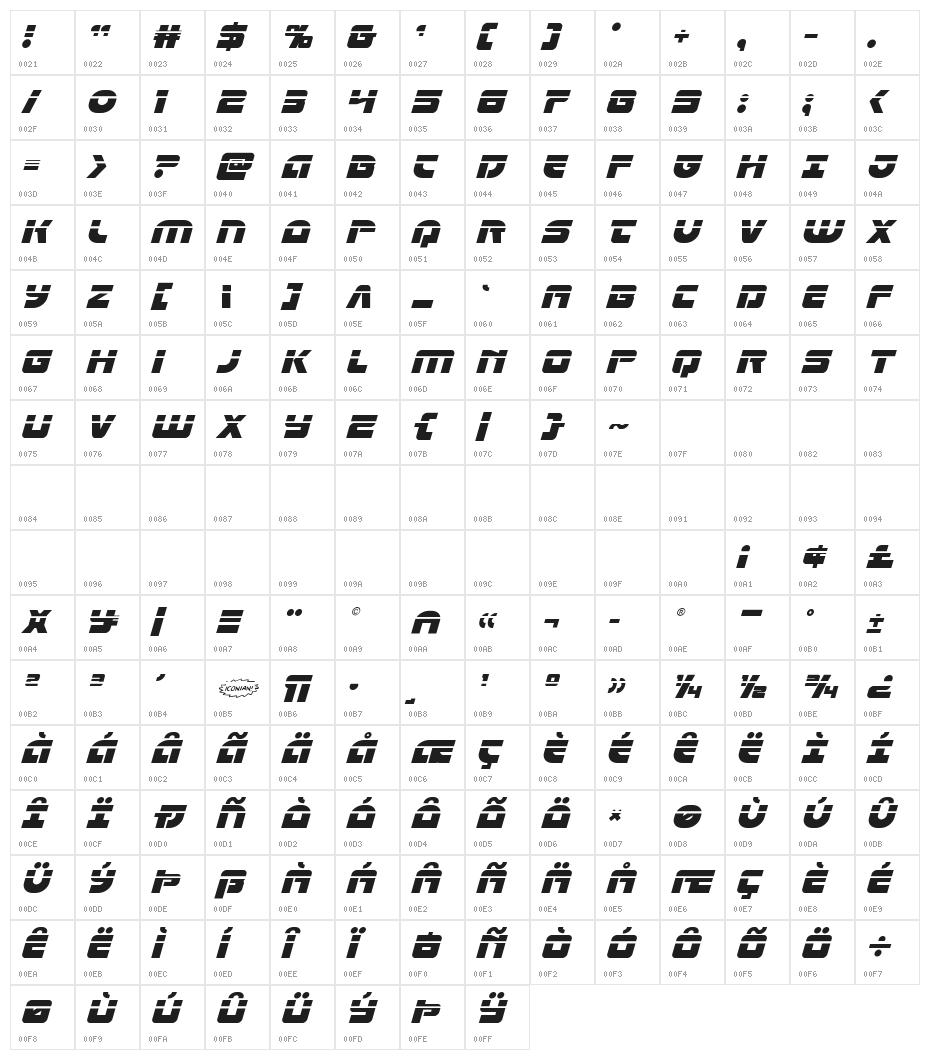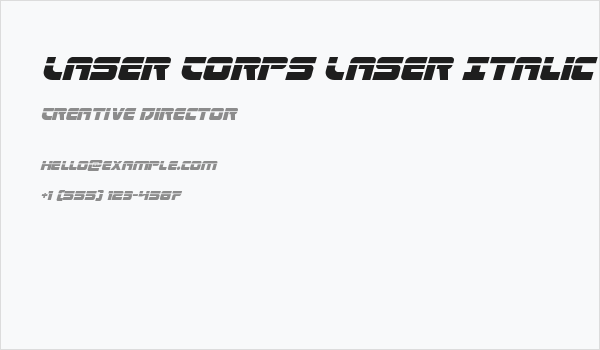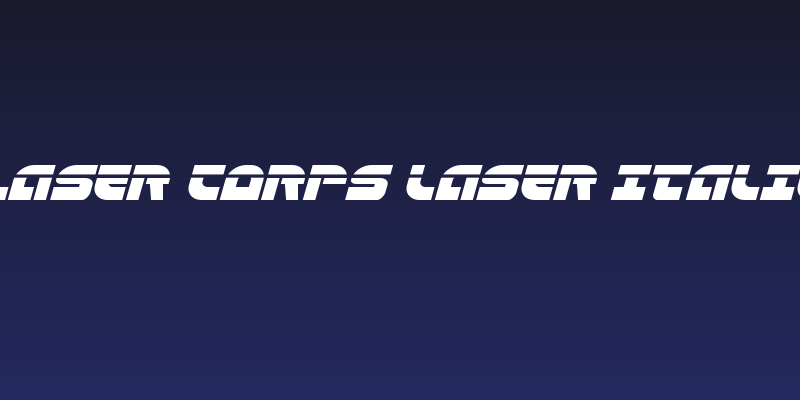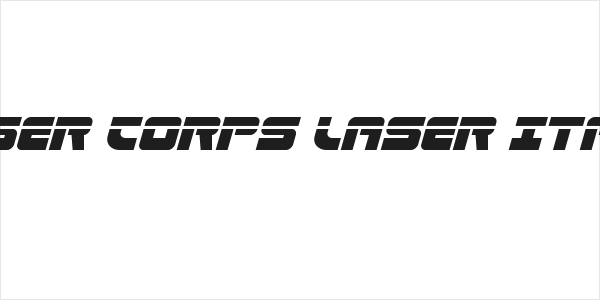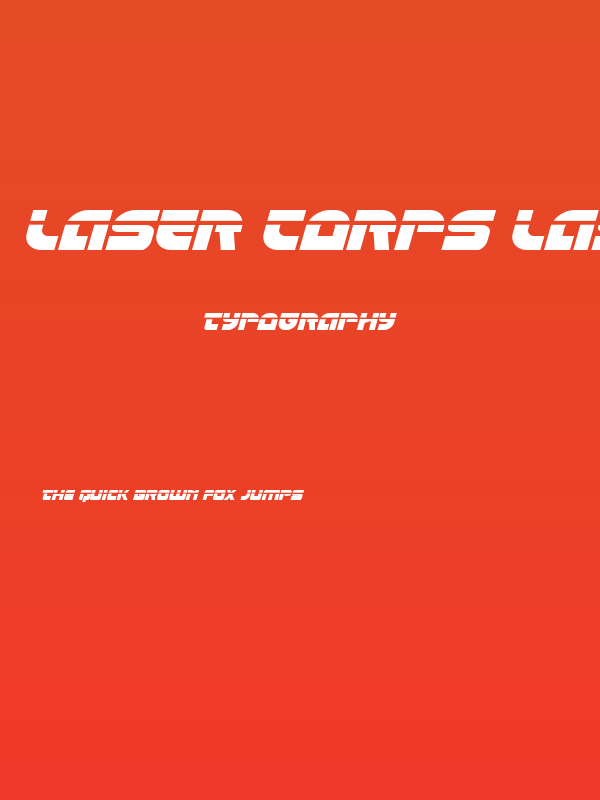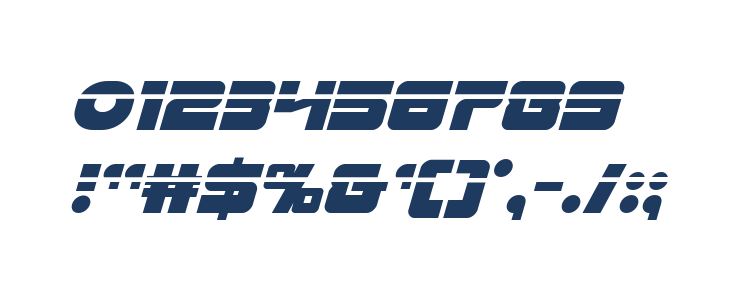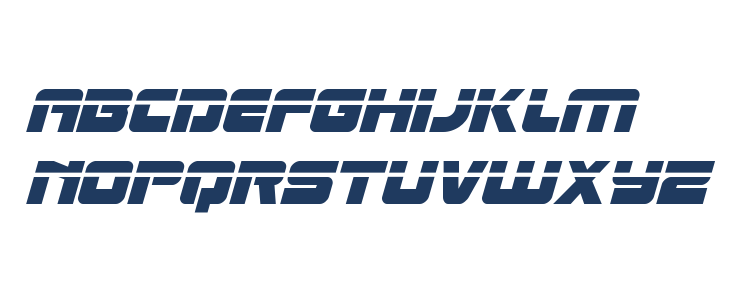
Laser Corps Laser Italic Font
Laser Corps Laser Italic Description
This font features a futuristic and dynamic design, characterized by its bold and italicized letterforms. The characters have a distinct geometric structure with sharp angles and a slanted orientation, giving it a sense of motion and speed. The uppercase and lowercase letters maintain a consistent style, with the uppercase being more prominent and the lowercase slightly more compact. The numbers and special characters follow the same design principles, ensuring uniformity across all glyphs. The overall appearance is sleek and modern, suitable for projects that require a cutting-edge and tech-savvy aesthetic.
| Proposed Projects | Ideal for technology branding, sci-fi movie posters, video game titles, and modern advertising campaigns. |